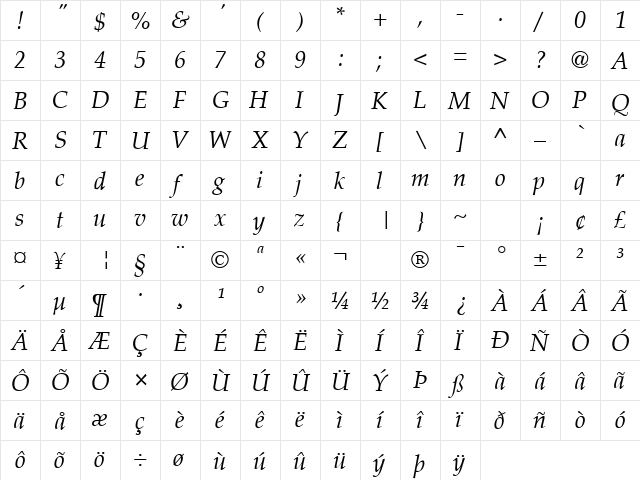
Whipping Post 8 Italic
Design Context for Whipping Post 8 Typeface
Whipping Post 8 is a composed and adaptable typeface that performs quietly and consistently across a wide range of design contexts. Its italic angle brings a sense of urgency and motion to the letterforms.
Pro Tip: Try Whipping Post 8 for annotation and caption copy alongside an upright companion — the contrast in angle creates a dynamic but ordered typographic system.